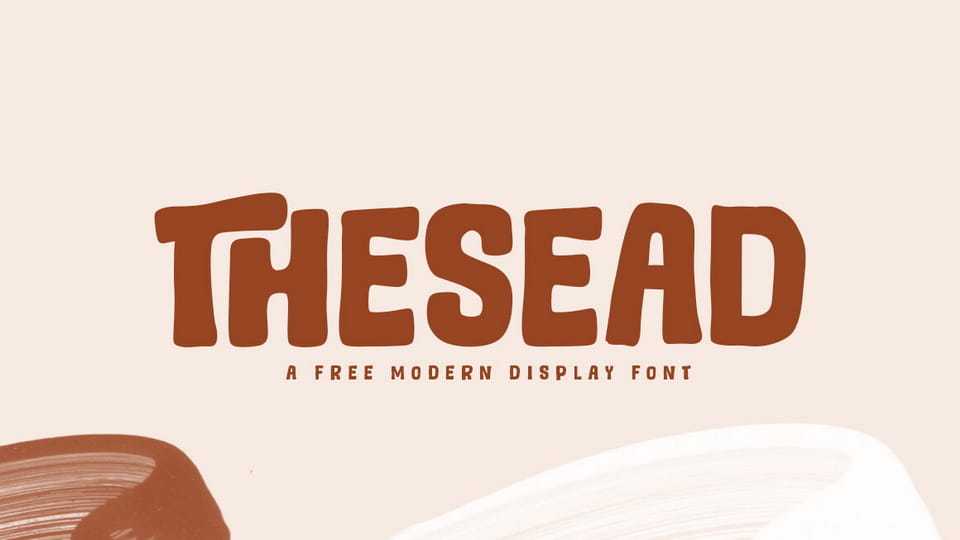
Download Thesead font, a bold, playful hand-drawn typeface designed to bring energy and joy into any composition. Its chunky, bouncy look and lively proportions create a fun and expressive mood, making it perfect for eye-catching headlines.